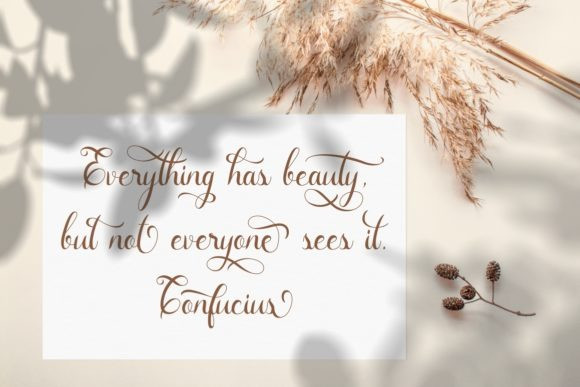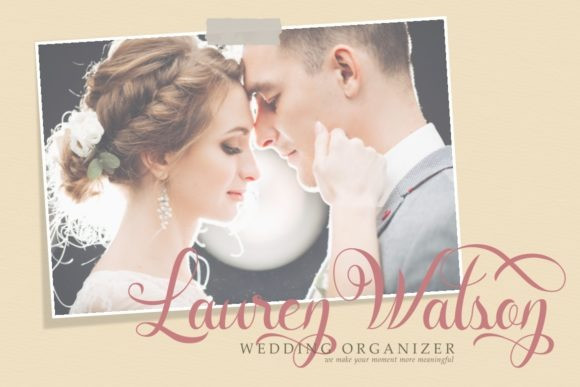
The Gift Font
The Gift Font is a sweet and delicate handwritten font. Dainty and joyful, this font will be ideal for writing wedding invitations, cards or any other design that may need a romantic, personalized touch!